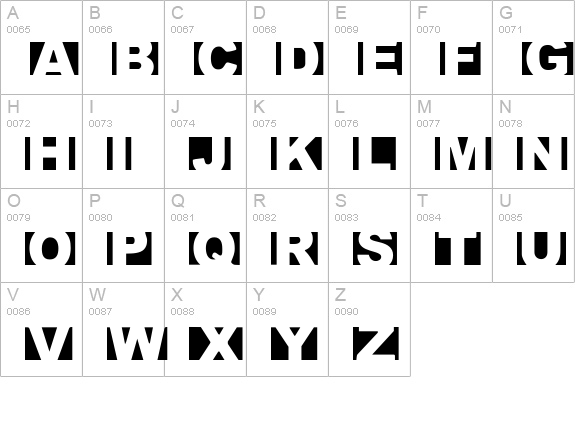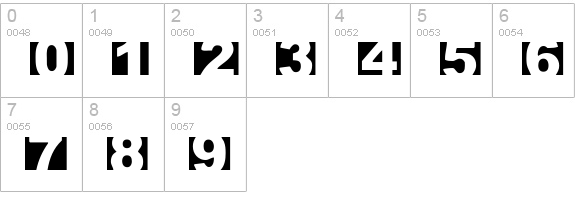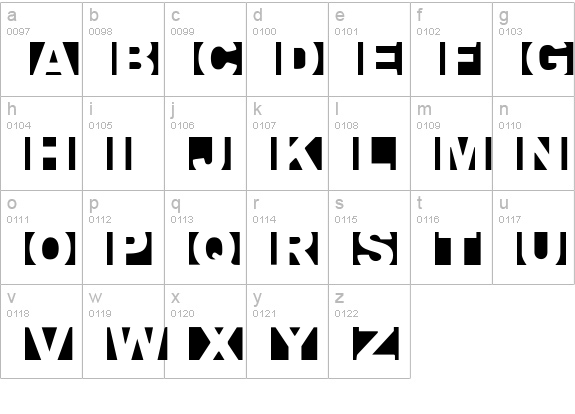
Crimescene Afterimage Font Details
Crimescene Afterimage font is a captivating and mysterious typeface that exudes an aura of intrigue and suspense. Its bold and edgy design is perfect for adding a touch of drama to your creative projects. With its sharp angles and unique letterforms, Crimescene Afterimage font is sure to make a statement. The best part? Crimescene Afterimage font is available for free download at FontsMarket.com. Whether you're working on a poster, website, or any other design project, this font will add a touch of noir elegance that will set your work apart. Don't miss out on this opportunity to elevate your designs with the striking Crimescene Afterimage font. Download it now and unleash your creativity!